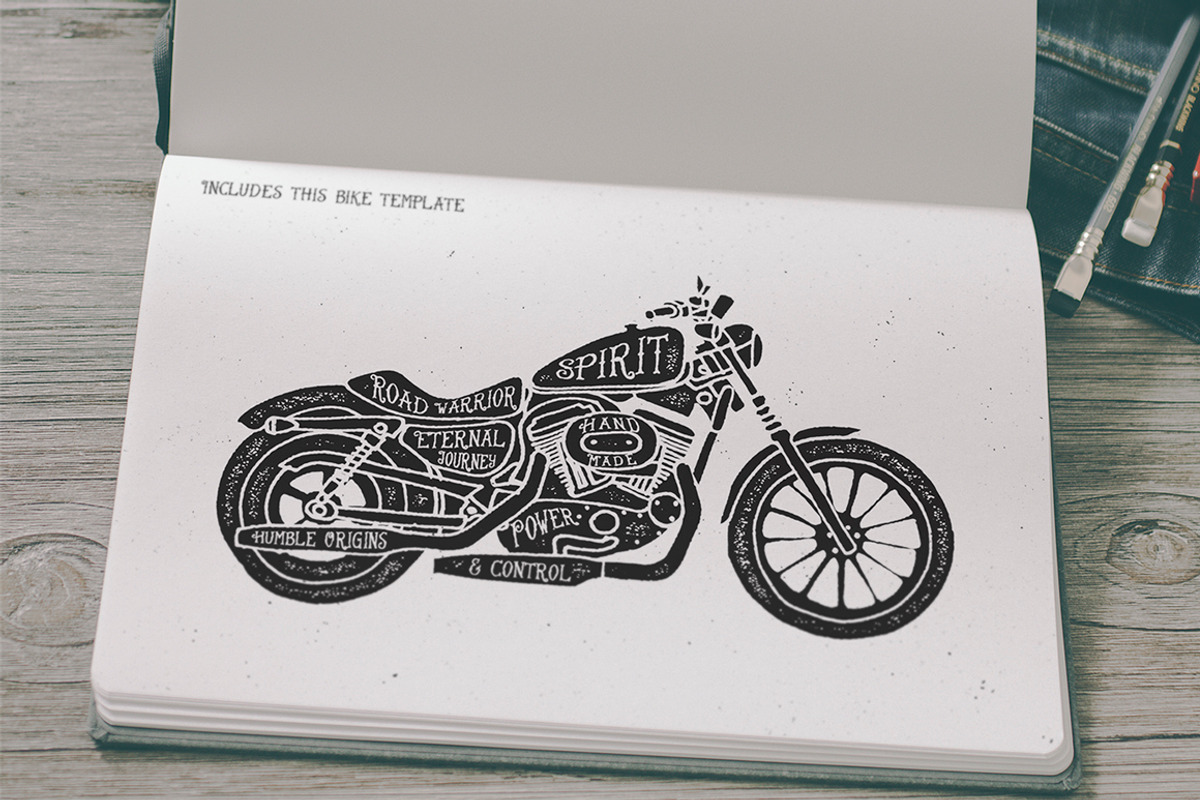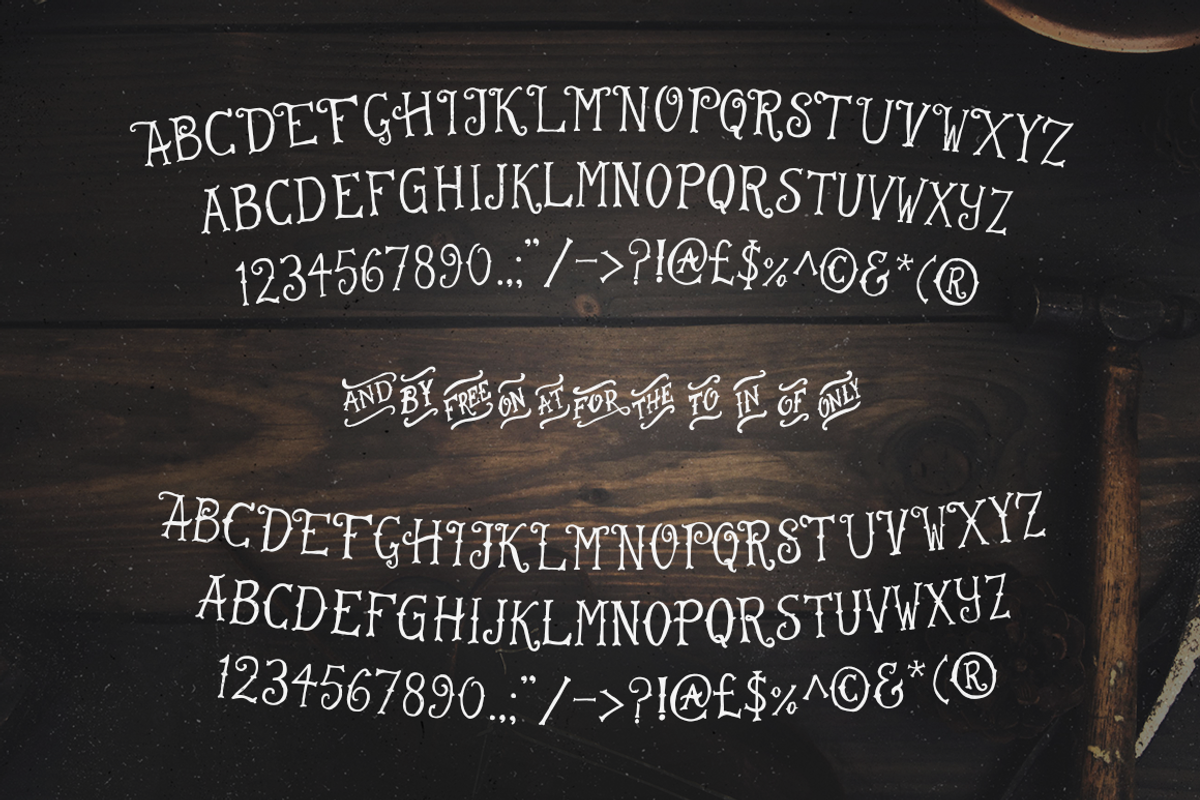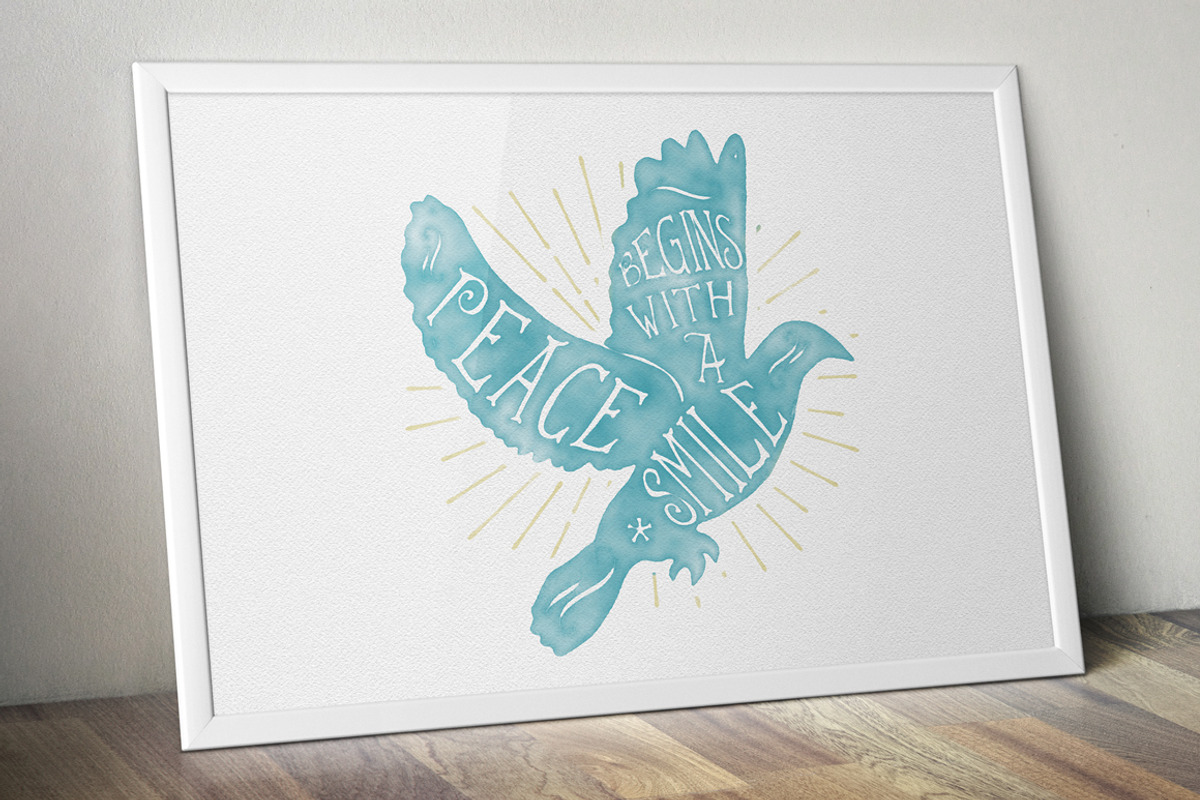
Warrior - Hand Drawn Typeface
Warrior - Hand Drawn Typeface by Ian Barnard is a font selected for branding, posters, packaging, typography.
Why Warrior - Hand Drawn Typeface is worth a look
Warrior - Hand Drawn Typeface by Ian Barnard fits naturally into Branding, posters, packaging, typography.